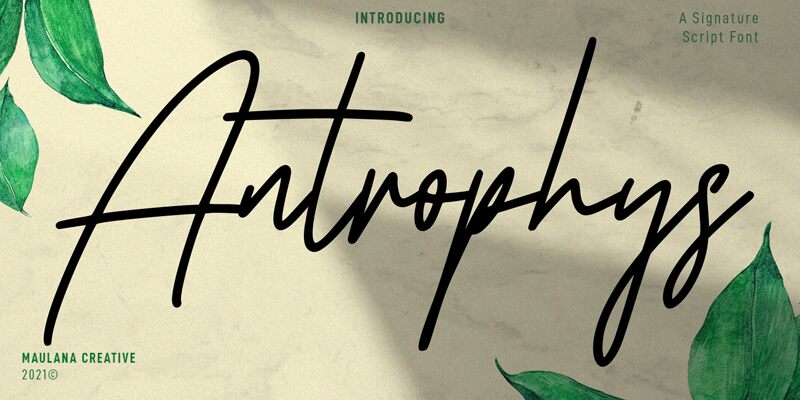
Antrophys Free Regular
Antrophys is a delightful handwritten signature font created by Maulana Creative. Its light weight and semi-condensed width make it perfect for elegant invitations, personal branding, and sophisticated logos. The fluid curves of Antrophys lend themselves well to fashion projects or beauty blogs that need a touch of refinement. This font is also suitable for romantic-themed designs such as wedding stationery or anniversary cards. With Antrophys, you can add a touch of class to any project that requires an air of grace and elegance.